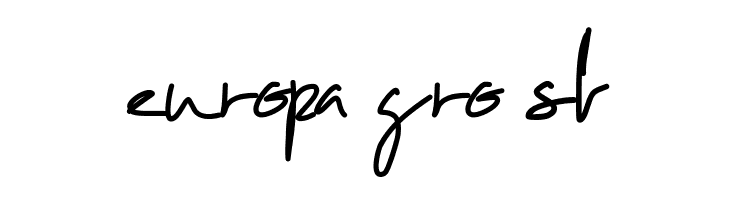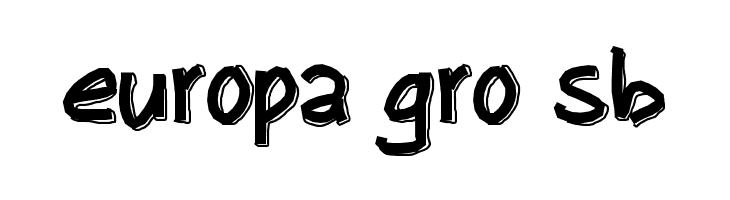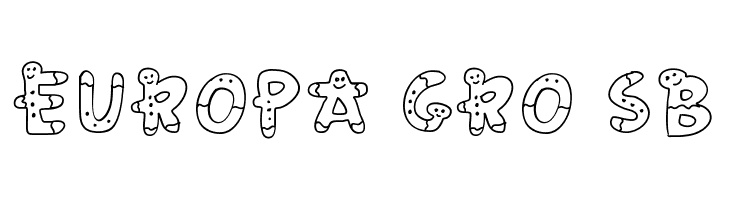
A hand-drawn, angular font with a sketch-like, artistic style.
A dynamic, handwritten font with elongated, expressive strokes.
A modern, rounded font with a futuristic and bold design.
A playful, icing-topped font perfect for festive themes.
A playful, hand-drawn font with a sketch-like, artistic appearance.
A dynamic, handwritten font with an oblique, energetic style.
A decorative font with playful, hand-drawn food icons.
A bold, hand-drawn font with a playful and energetic style.
A playful, gingerbread-inspired font with icing-like details and a festive vibe.